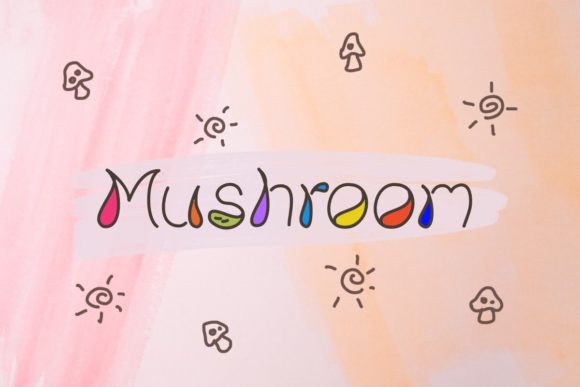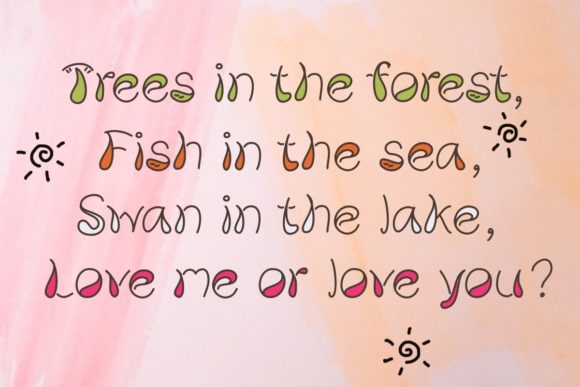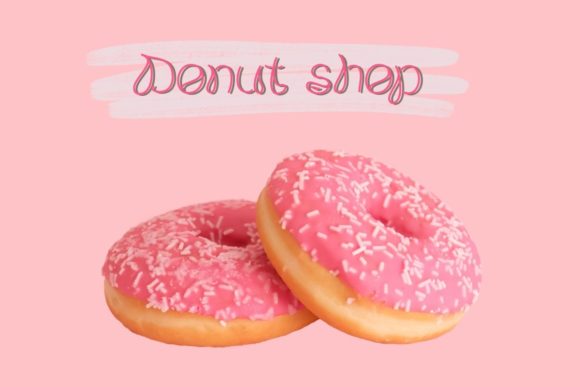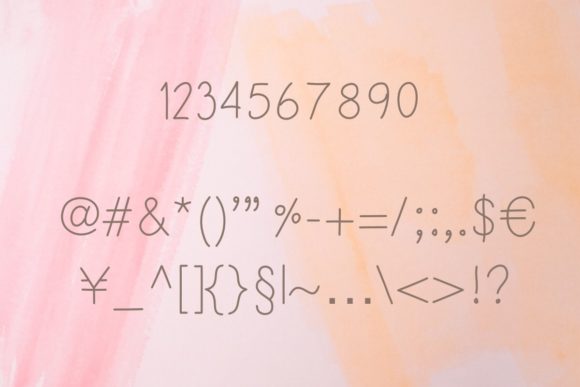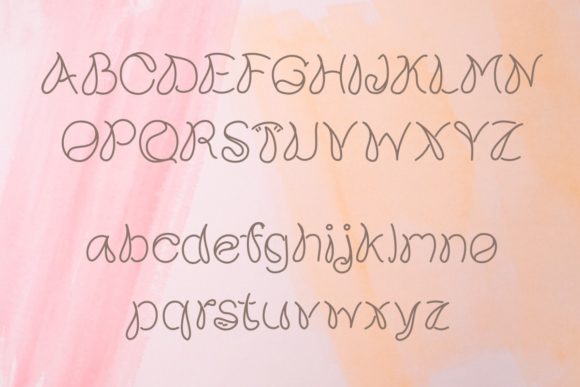
Mushroom Font
About Mushroom Font
“Mushroom” is a charming and delicate script font that exudes a friendly and playful vibe. With its whimsical and versatile style, this font is perfect for a wide range of creative projects.
The unique letterforms of “Mushroom” are carefully crafted to create a delightful and inviting appearance. Its gentle curves and flowing strokes add a sense of elegance and grace to your designs. Whether you’re designing wedding invitations, creating beautiful stationery art, or crafting eye-catching social media posts, “Mushroom” will bring a touch of sweetness and charm to your creations.
The versatility of “Mushroom” allows it to be used in various contexts and themes. It can be applied to both formal and informal designs, adapting effortlessly to different design styles. Whether you’re aiming for a romantic, whimsical, or casual look, “Mushroom” will add a delightful and personalized touch.
From wedding stationery to greeting cards, from social media graphics to logo designs, “Mushroom” will capture attention and evoke a sense of joy and warmth. Its friendly and approachable nature makes it an ideal choice for creating a welcoming atmosphere in your designs.
Let your creativity bloom with “Mushroom” and discover the endless possibilities it offers. Fall in love with its versatile style and let it infuse your projects with a touch of sweetness and beauty.